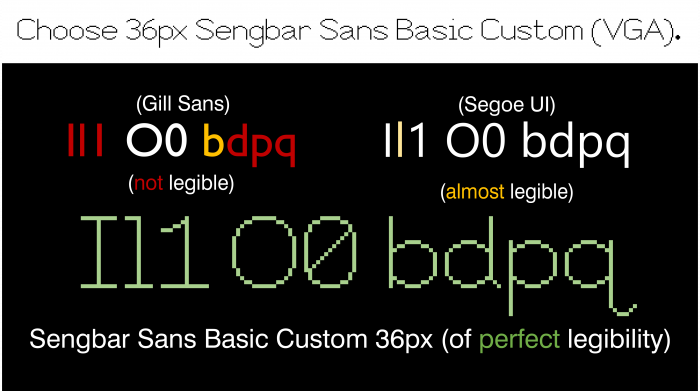
• Sengbar Sans Basic Custom VGA-style (36px) is a customed basic pixel sans-serif which blends the original Cadmus Legible Unicode (48px) and Sengbar Delta Compressed Pixel (my compressed bitmap pixel counterpart) together, but much like both Cadmus Legible Unicode and Sengbar Cadmus Print Pixel, each of these assigned glyphs (e.g.: I, l, 1, O, 0, b, d, p, q) has distinguishable letter forms, some glyphs may include serifs, a zero-stroke, and its tails/end strokes (in the UK, they call this "exit strokes"), pretty much like what Inclusive Sans and/or Atkinson Hyperlegible has. This font is in the style of the VGA, and is also useful for AWTL/AOSTL and OSMK usage.
This font is also designed for accessibility, legibility, and readability, rendering this font "more accessible" and "perfectly distinctive" unlike its competitors Gill Sans MT, Arial, Helvetica and Segoe UI (although this font is its default, it can almost be legible).
As you might currently haven't noticed, my font leans toward the "accessible and friendly" side. Some of my remaining glyphs have distinctive and distinguishable letter forms that are easier to read and does not contain the mirroring of two letters d/b, and p/q. Same as before (my previous popular font was Cadmus Legible Unicode 48px), I felt like choosing a pixelated FontStruction was an easy choice. I still make FontStructions as of today.
(My font is currently in its Basic version. I will try to make a Unicode version sometime soon.)
Here is the preview.